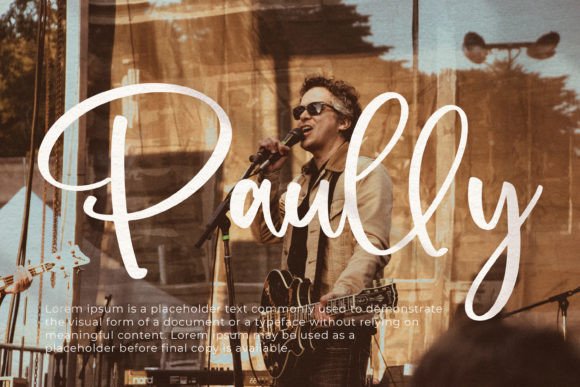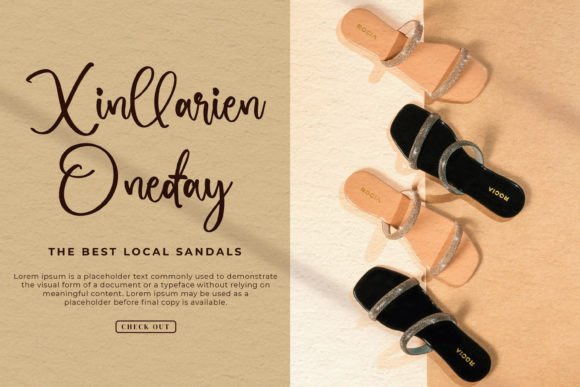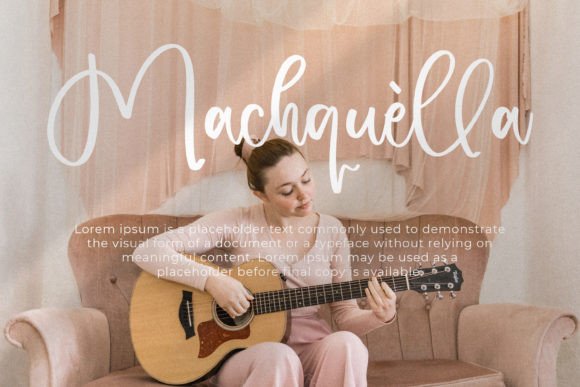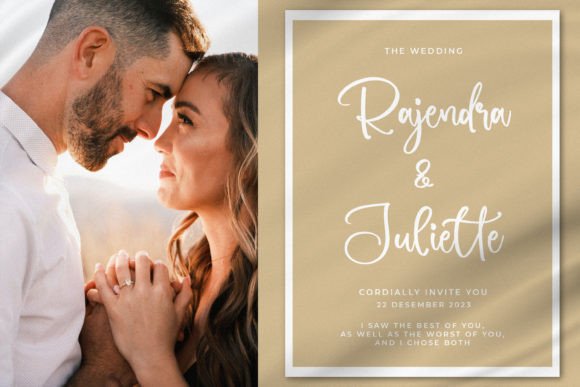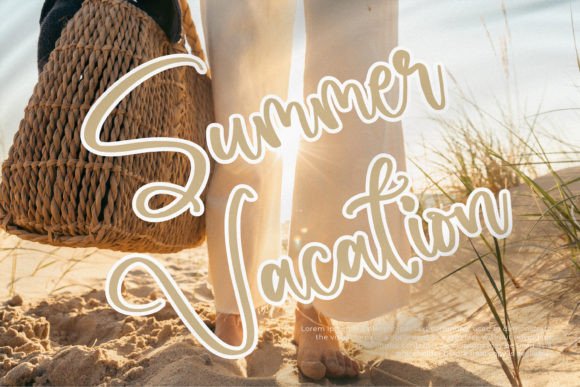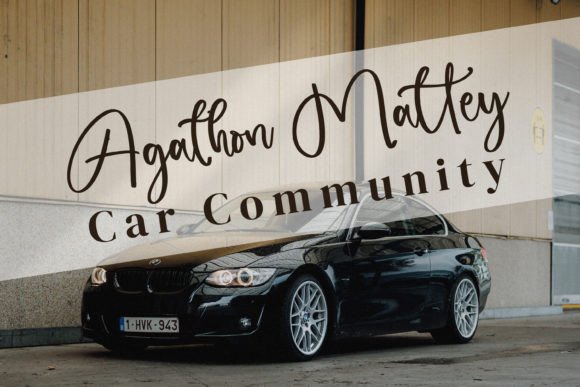
Introduction to Sauxlle Font
Have you ever been in the middle of a creative project, staring at a blank page or screen, and suddenly, the perfect font pops into your mind? That’s exactly what happened to me when I discovered the Sauxlle Font. Its elegant, handwritten style perfectly captured the essence of my design vision, elevating my project from good to great.
The Sauxlle Font is more than just a pretty face; it’s a high-quality design resource that can take your creative projects to the next level. With its classy calligraphic influences and modern twist, this font is a versatile tool for designers who crave a unique look without sacrificing readability.
Whether you’re a graphic designer, blogger, or entrepreneur, the Sauxlle Font is an excellent addition to your design arsenal. And the best part? It’s available for free download, making it an accessible design resource for everyone. With a transparent background, you can easily layer it over your favorite images or use it as a standalone element. Get ready to fall in love with the Sauxlle Font and watch your designs shine!
Key Features of Sauxlle Font
- High-quality design with a unique, creative style perfect for various projects.
- Includes a transparent background option for seamless integration into various designs.
- Includes a range of characters, including uppercase and lowercase letters, numbers, and symbols.
- Designed with a high-resolution output, suitable for printing and digital applications.
- Perfect for use in creative projects, such as logos, graphics, and typography-based designs.
Honest Review: Sauxlle Font
I recently had the opportunity to work with the Sauxlle Font, and I must say it’s been a game-changer for my creative projects. As a designer, I’m always on the lookout for high-quality design resources that can elevate my work, and the Sauxlle Font certainly delivers.
One of the standout features of this font is its versatility. It’s perfect for a wide range of creative projects, from logos and branding materials to social media graphics and more. I’ve found that it works particularly well for projects that require a clean and modern aesthetic.
Here are some of the things that work well with the Sauxlle Font: ✨
- High-quality design: The font is crisp and clear, making it perfect for a variety of projects.
That being said, there are a few limitations to be aware of: ⚠️
- Transparent background: The font does not support transparent backgrounds, which can make it difficult to use for projects that require a lot of layering.
- Limited customization options: While the font is highly versatile, it’s not particularly customizable, which can be a limitation for designers who want more control over their projects.
Overall, I’m thoroughly impressed with the Sauxlle Font. It’s a valuable addition to any designer’s toolkit, and I highly recommend it to anyone looking for a high-quality design resource.
The Sauxlle Font is a high-quality design resource ideal for creative projects requiring a unique and elegant touch. This font is available for free download, making it an excellent choice for designers and artists on a budget.
Tips for Getting the Most Out of Sauxlle Font
For the best results, use the Sauxlle Font on a transparent background to create a seamless design. Experiment with different font sizes and styles to achieve the desired effect.
The Sauxlle Font is ideal for designing logos, branding materials, and marketing collateral. Its elegant and sophisticated design makes it perfect for high-end projects requiring a touch of luxury.